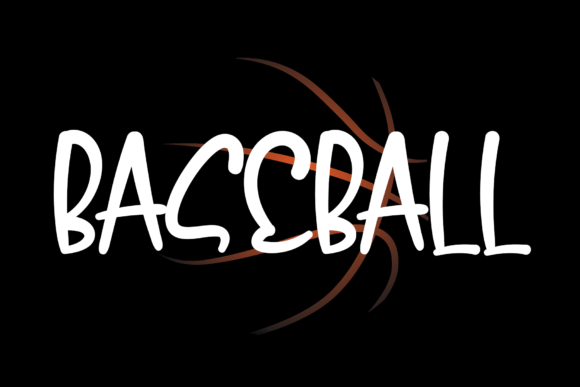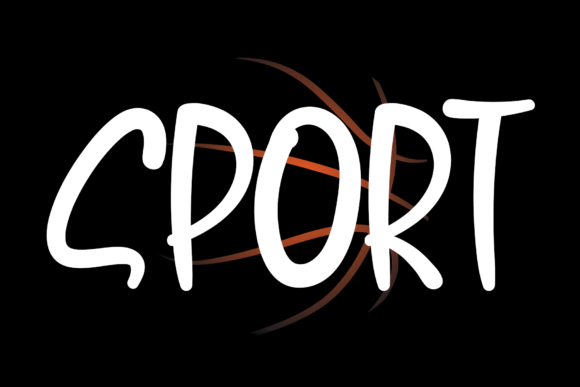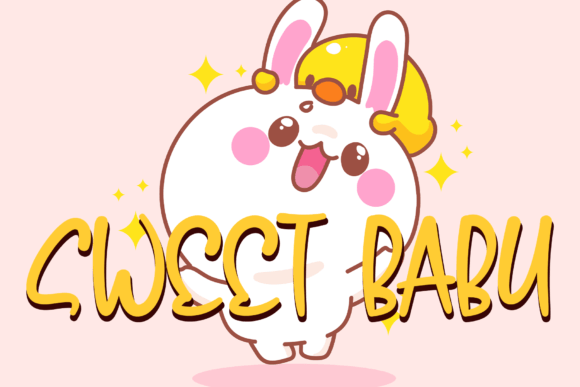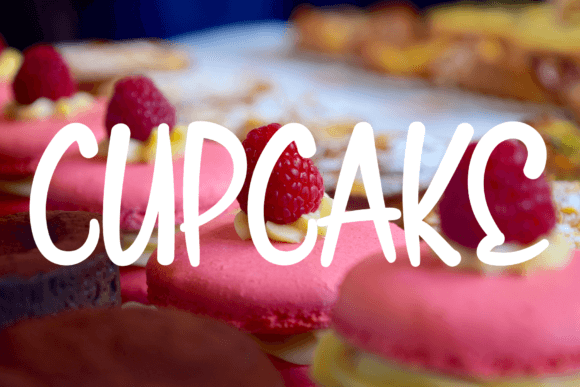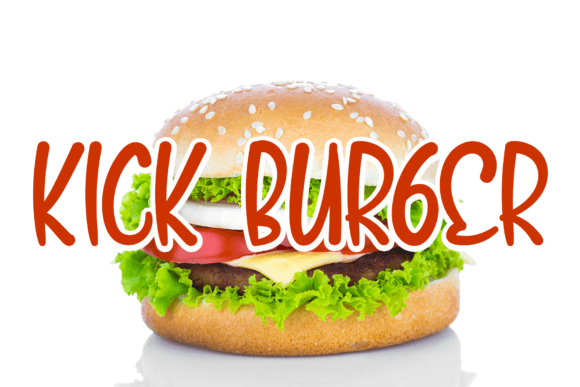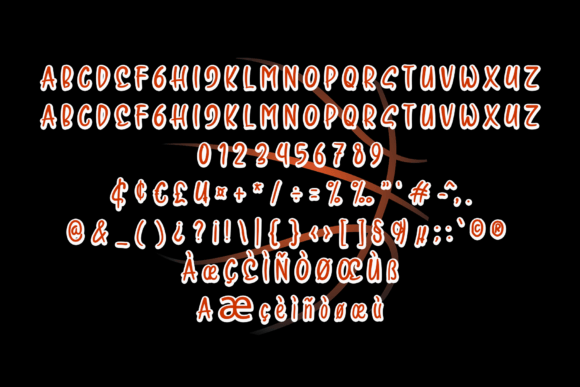
Easter Basket Font: The Perfect Addition to Your Easter Crafts and Designs
Are you looking for a fun and friendly font to add a personal touch to your Easter crafts, digital designs, and greeting cards? Look no further than the Easter Basket font! This delightful handwritten font is sure to become your go-to choice for all your Easter-related projects and beyond.
What Makes Easter Basket Font So Special?
Easter Basket font is a unique and charming handwritten font that exudes warmth and friendliness. Its playful and whimsical design makes it perfect for a variety of creative projects, from Easter-themed crafts and decorations to digital designs, presentations, and greeting cards.
Whether you’re a designer, crafter, or DIY enthusiast, Easter Basket font is sure to inspire your creativity and add a personal touch to your work. Its versatility and charm make it an excellent choice for a wide range of projects, including:
- Easter crafts and decorations, such as Easter baskets, eggs, and cards
- Digital designs, including social media graphics, blog posts, and email newsletters
- Presentations, such as Easter-themed slideshows and videos
- Greeting cards and invitations, including Easter-themed cards and party invites
Key Features of Easter Basket Font
Easter Basket font comes with a range of features that make it a joy to use. Some of its key features include:
- Handwritten design: Easter Basket font has a beautiful, handwritten design that adds a personal touch to any project
- Playful and whimsical: The font’s playful and whimsical design makes it perfect for Easter-themed projects and other creative endeavors
- Easy to read: Despite its playful design, Easter Basket font is easy to read and understand, making it perfect for body text and headings
- Versatile: Easter Basket font can be used for a wide range of projects, from digital designs to crafts and presentations
How to Use Easter Basket Font in Your Projects
Using Easter Basket font in your projects is easy! Here are a few tips to get you started:
- Pair it with other fonts: Easter Basket font pairs well with other fonts, such as sans-serif fonts and script fonts. Experiment with different combinations to find the perfect look for your project
- Use it for headings and titles: Easter Basket font is perfect for headings and titles, where its playful design can really shine
- Add it to your digital designs: Easter Basket font can be used in digital designs, such as social media graphics and blog posts, to add a personal touch
- Use it for crafts and DIY projects: Easter Basket font can be used in crafts and DIY projects, such as Easter baskets and cards, to add a personal touch
Tips and Tricks for Getting the Most Out of Easter Basket Font
Here are a few tips and tricks for getting the most out of Easter Basket font:
- Experiment with different colors: Easter Basket font looks great in a range of colors, from bright and bold to pastel and soft. Experiment with different colors to find the perfect look for your project
- Use it with Easter-themed graphics: Easter Basket font pairs perfectly with Easter-themed graphics, such as Easter eggs, bunnies, and baskets
Easter Basket font is a fun and friendly handwritten font that’s perfect for Easter crafts, digital designs, presentations, and greeting cards. Its playful and whimsical design makes it a joy to use, and its versatility and charm make it an excellent choice for a wide range of projects. Whether you’re a designer, crafter, or DIY enthusiast, Easter Basket font is sure to inspire your creativity and add a personal touch to your work.